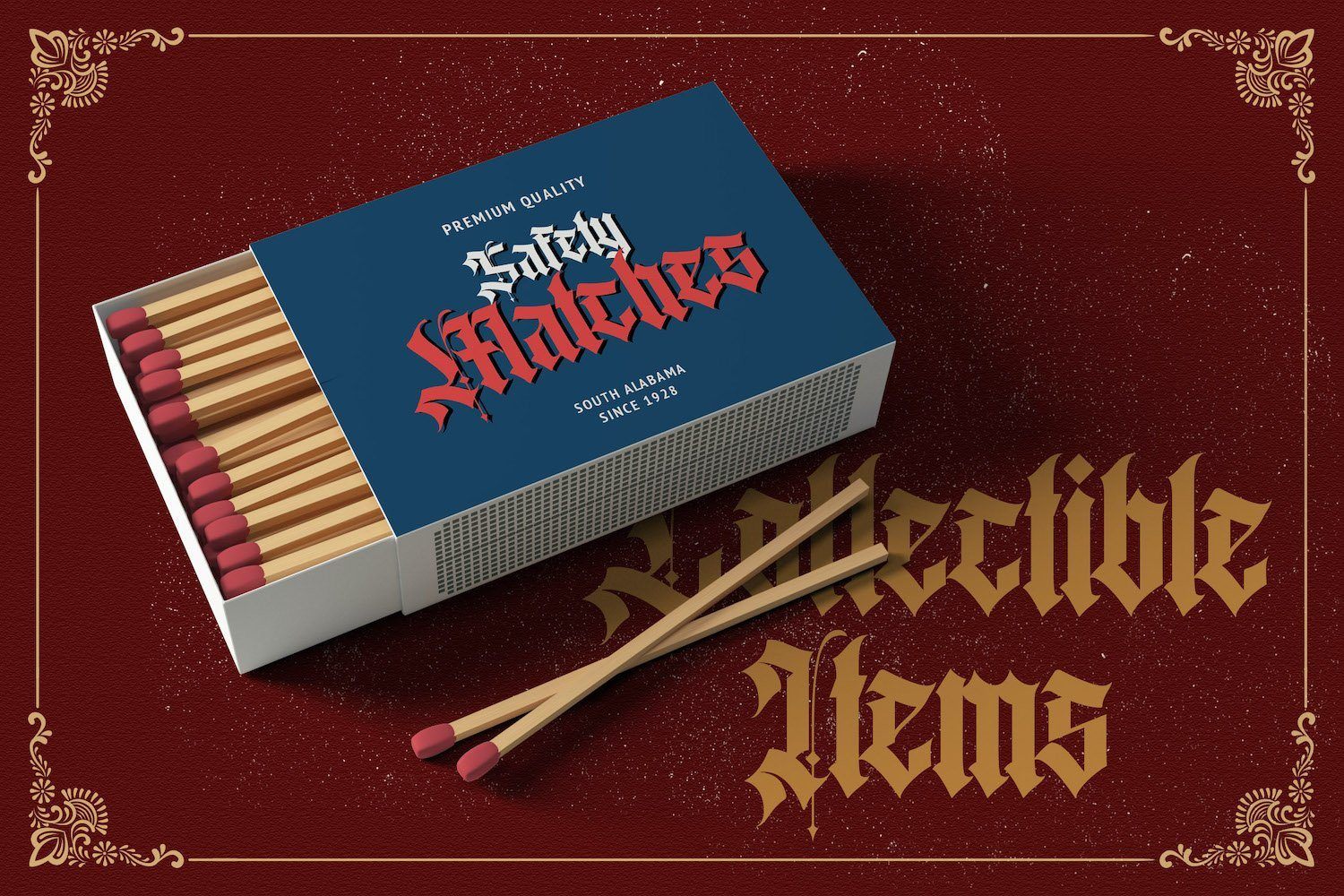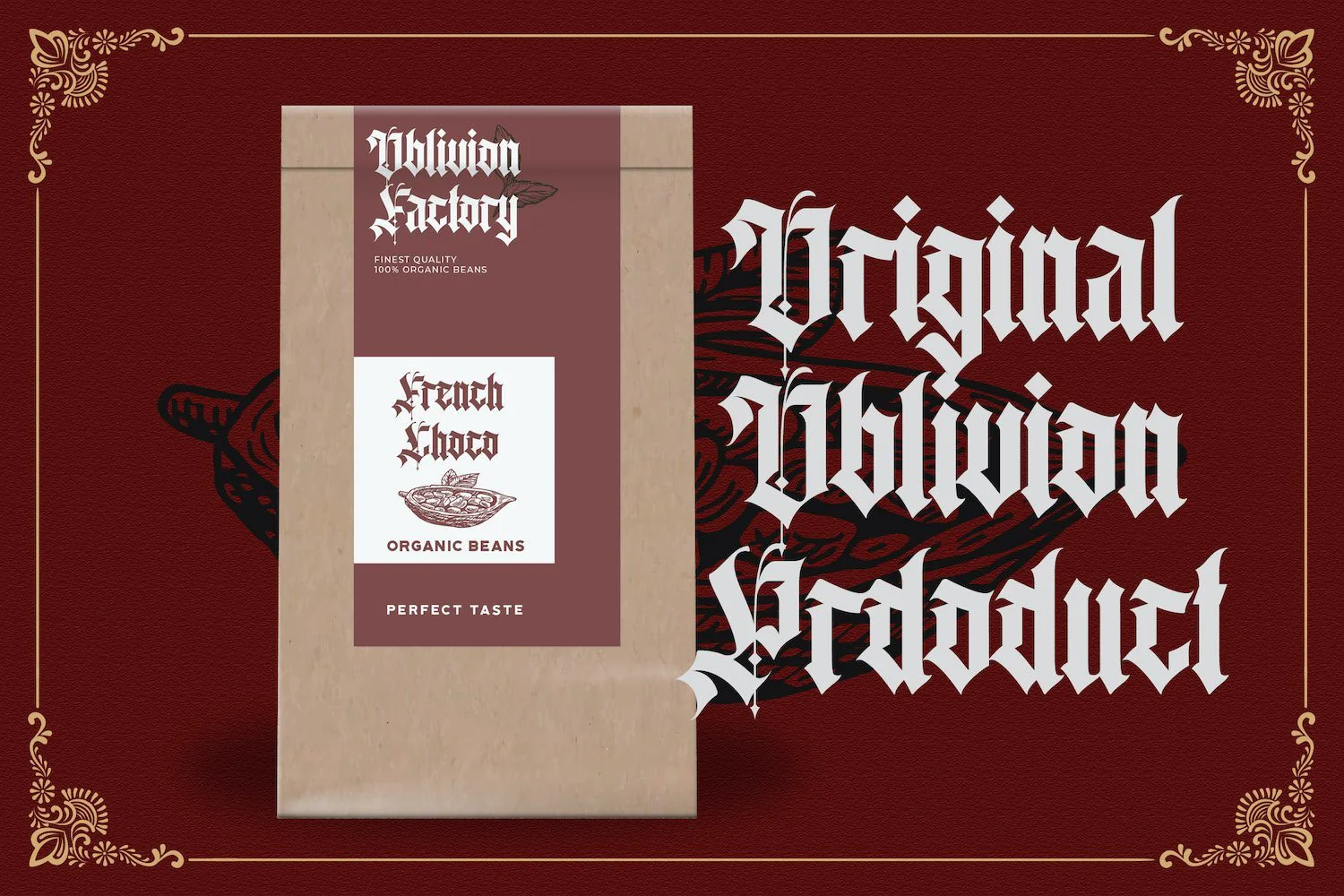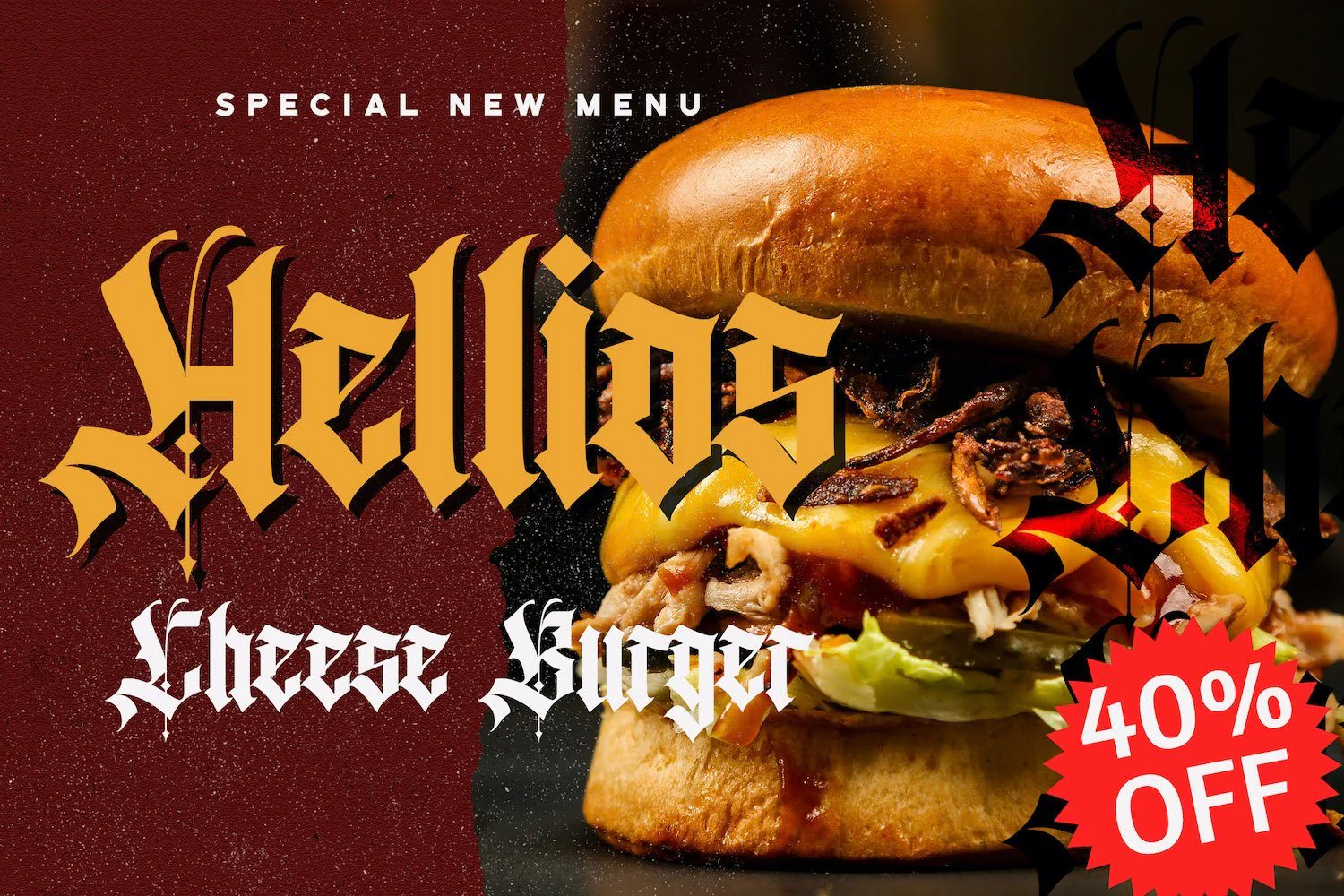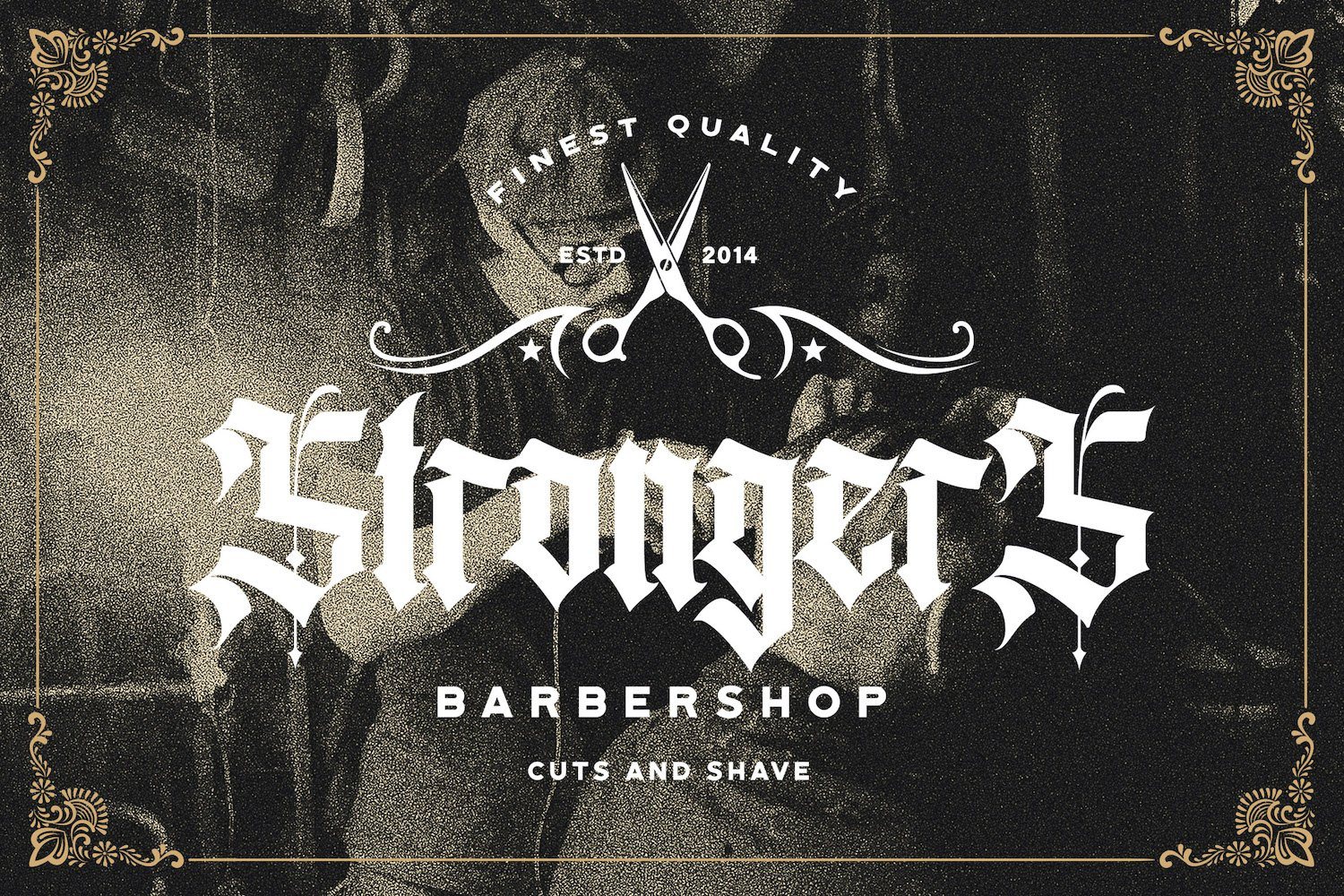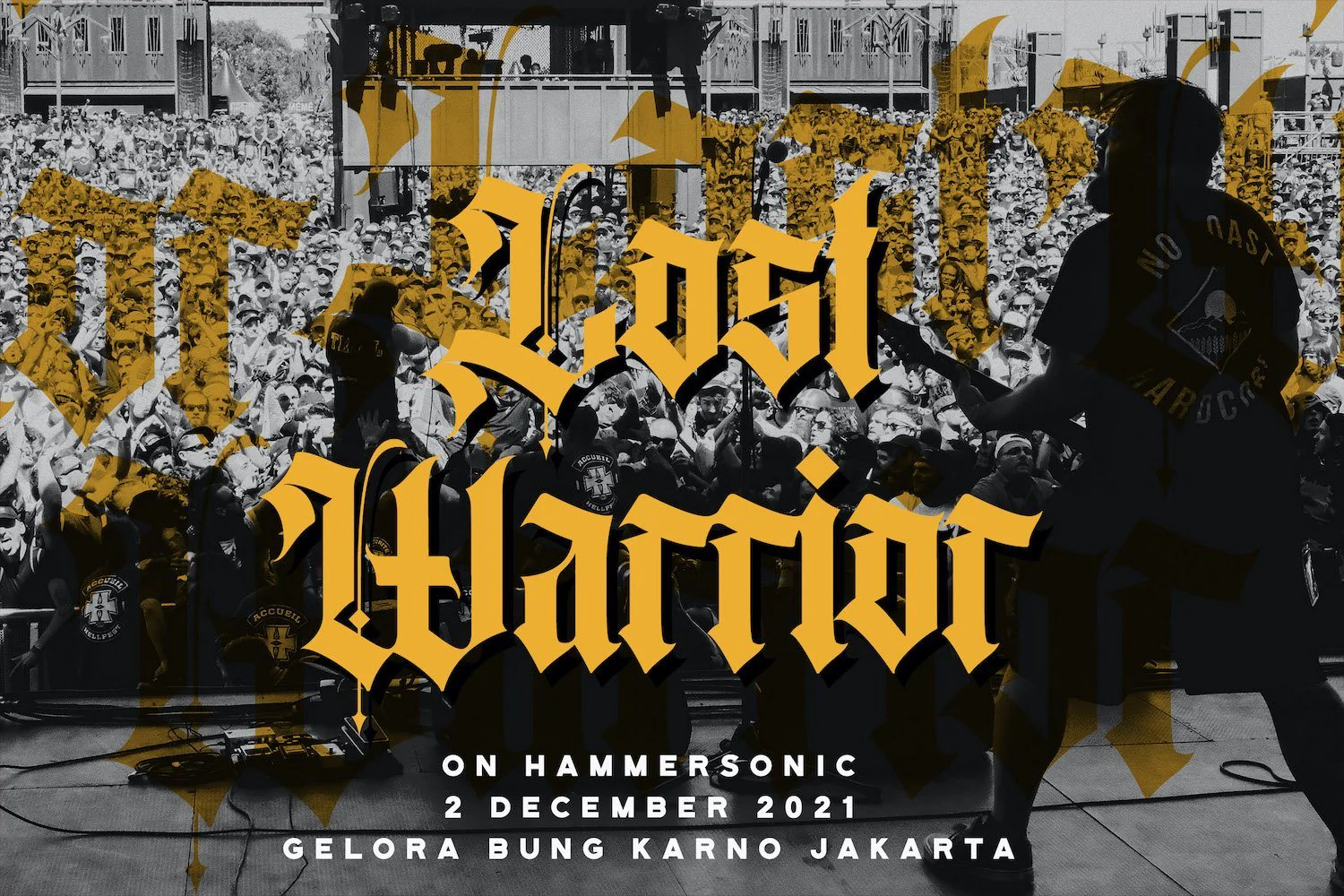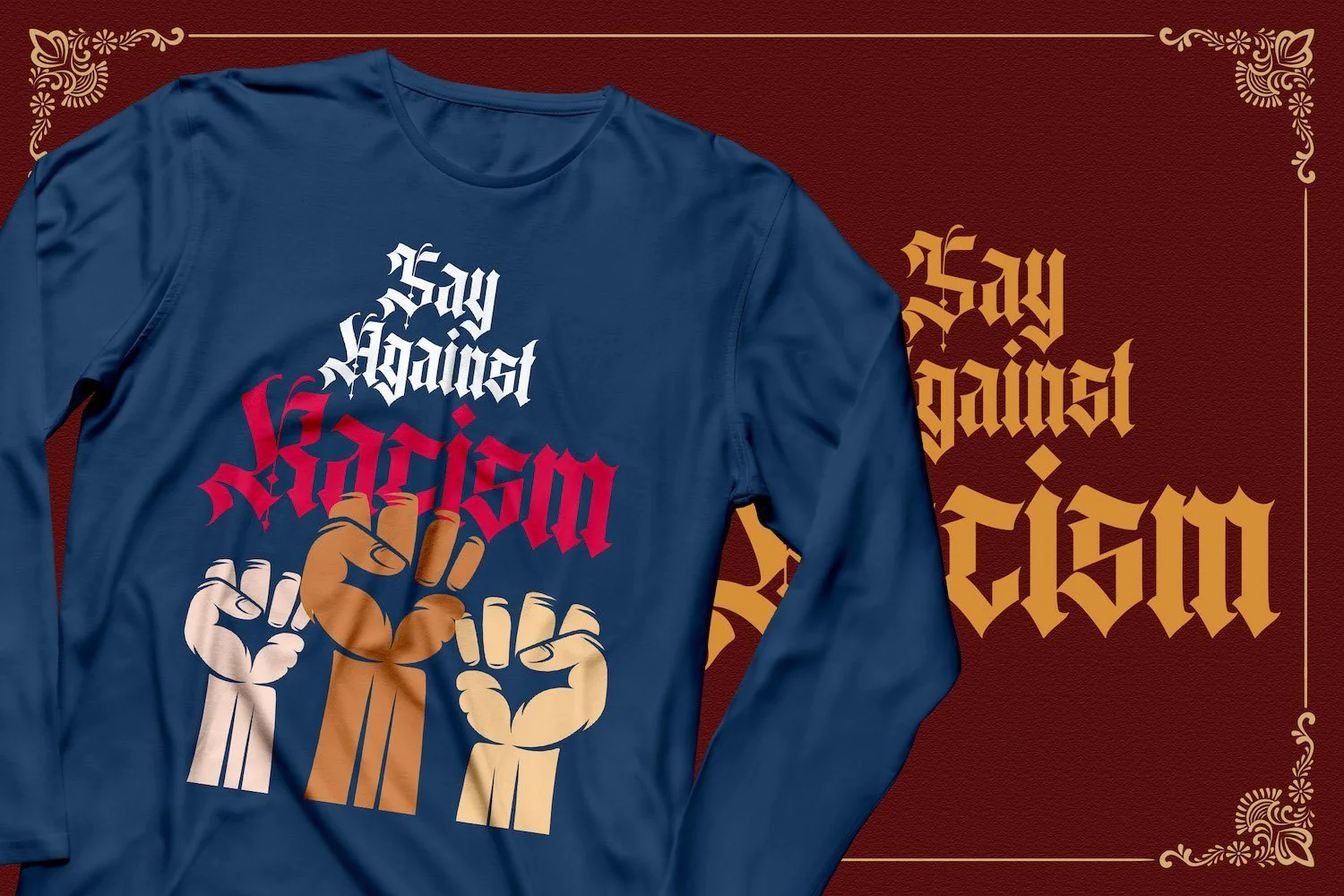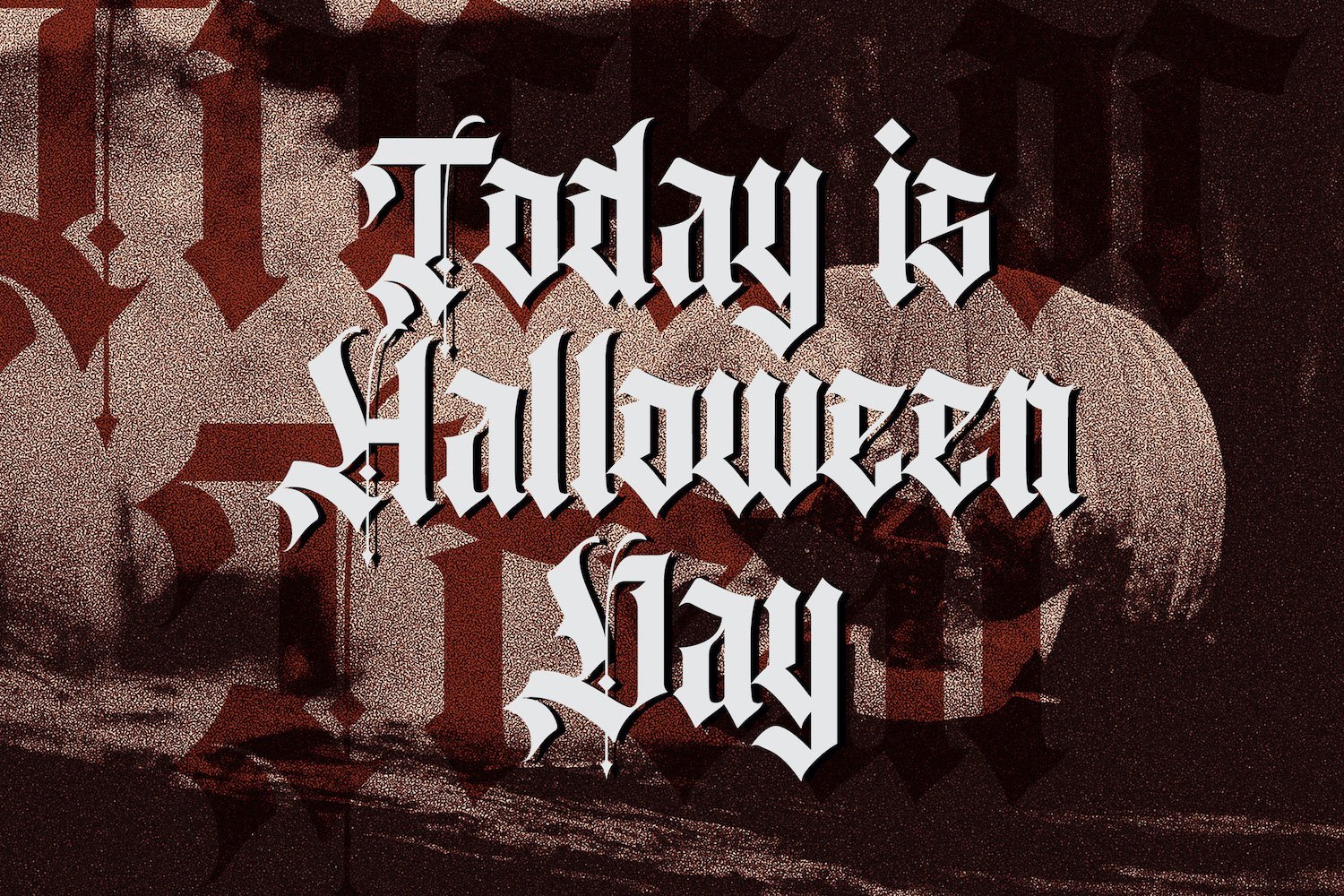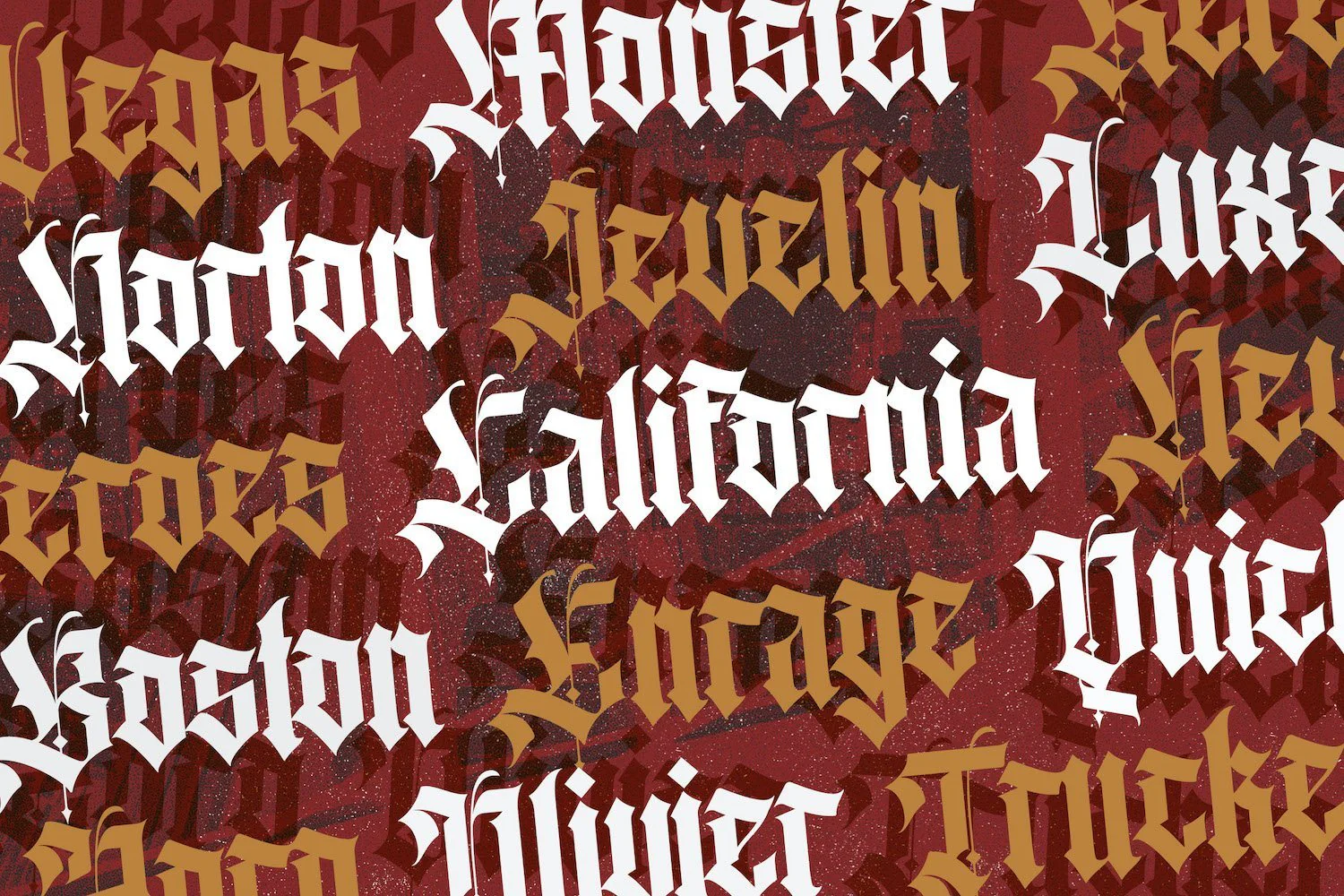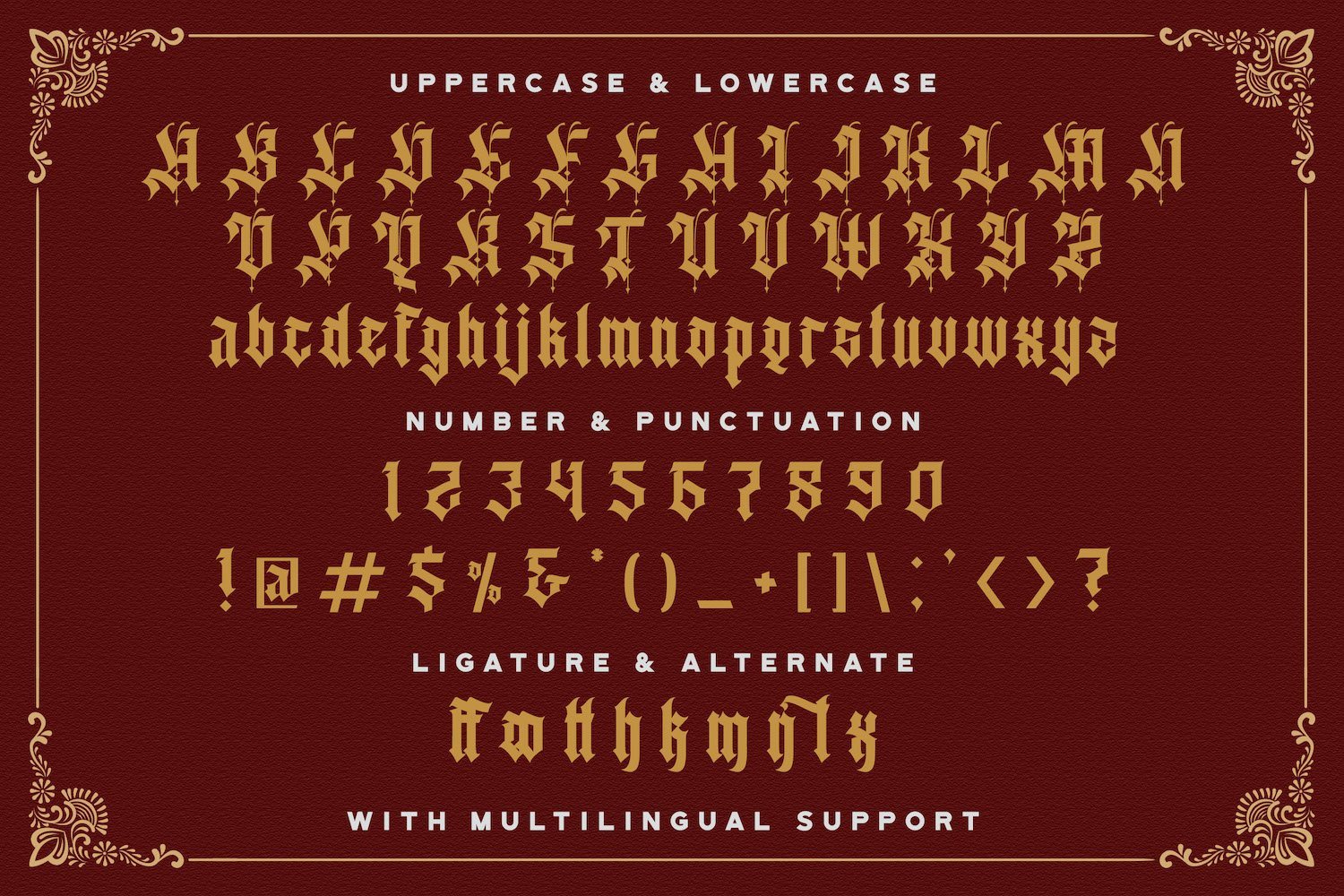
Agathiqy - Blackletter Font
Introducing Agathiqy - Blackletter Font
Agathiqy is an incredibly authentic and daring blackletter font. Add this font to your favorite creative ideas and notice how it makes them stand out!